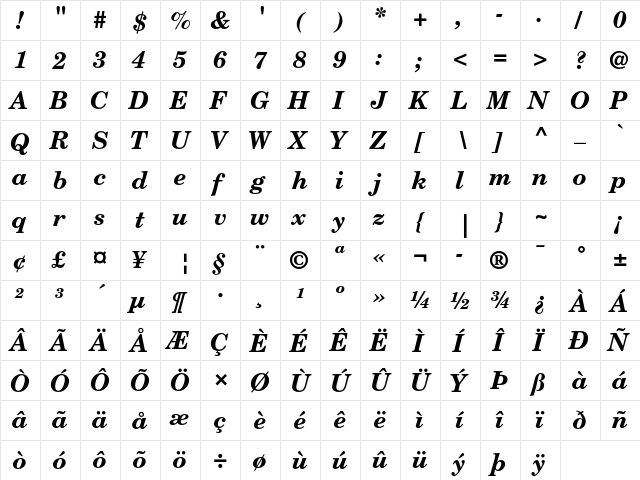
New Century Schoolbook LT Std Bold Italic
Bold Italic ·  Morris Fuller Benton ·
DesignerMorris Fuller Benton
Design Context for New Century Schoolbook LT Std Typeface
New Century Schoolbook LT Std is a composed and adaptable typeface that performs quietly and consistently across a wide range of design contexts. The dynamic lean of this cut emphasises speed and emphasis in any layout. Its bold stroke weight gives it real presence on the page.
Pro Tip: Try New Century Schoolbook LT Std for annotation and caption copy alongside an upright companion — the contrast in angle creates a dynamic but ordered typographic system.